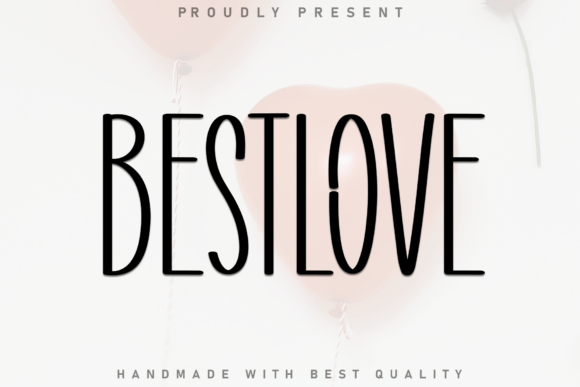
Introducing Bestlove Font: The Ultimate Handwritten Marker Font for Elegant and Casual Designs
In the world of typography, fonts play a crucial role in conveying the tone and personality of a brand or design. When it comes to creating a luxurious and elegant yet casual look, Bestlove Font is an excellent choice. This handwritten font, designed to mimic the look of a marker, offers a unique blend of sophistication and playfulness, making it perfect for a wide range of applications.
What is Bestlove Font?
Bestlove Font is a carefully crafted handwritten font that resembles the natural flow of a marker. Its relaxed and sporty feel makes it an ideal choice for designs that require a touch of elegance and casualness. The font’s unique characteristics make it versatile and suitable for various projects, from branding and logos to wedding supplies, greeting cards, fashion lookbooks, and marketing promotions.
Key Features of Bestlove Font
- Handwritten with a marker feel: Bestlove Font is designed to look like it was drawn with a marker, giving it a personal and organic feel.
- Relaxed and sporty vibe: The font exudes a sense of casualness and sportiness, making it perfect for designs that require a laid-back yet stylish look.
- Luxurious and elegant: Despite its casual feel, Bestlove Font still conveys a sense of luxury and elegance, making it suitable for high-end brands and designs.
- Versatile: The font can be used for a wide range of applications, including branding, logos, wedding supplies, greeting cards, fashion lookbooks, and marketing promotions.
Use Cases for Bestlove Font
Branding and Logos
Bestlove Font is an excellent choice for branding and logos, especially for businesses that want to convey a sense of elegance and sophistication. The font’s unique marker feel and relaxed vibe make it perfect for creating a distinctive brand identity.
Wedding Supplies and Greeting Cards
The font’s elegant and casual feel makes it suitable for wedding supplies, such as invitations, programs, and place cards. Additionally, Bestlove Font can be used for designing greeting cards, including birthday cards, thank-you cards, and holiday cards.
Fashion Lookbooks and Marketing Promotions
Bestlove Font is also ideal for fashion lookbooks, catalogs, and marketing promotions. The font’s luxurious and elegant feel makes it perfect for showcasing high-end fashion products, while its casual vibe adds a touch of approachability and friendliness.
Tips for Using Bestlove Font Effectively
- Pair with contrasting fonts: Combine Bestlove Font with contrasting fonts to create visual interest and hierarchy in your design.
- Use for headlines and titles: The font’s elegance and sophistication make it perfect for headlines and titles, while its casual feel works well for body text.
- Experiment with colors and textures: Bestlove Font can be used with a variety of colors and textures to create unique and eye-catching designs.
In conclusion, Bestlove Font is a versatile and elegant handwritten font that offers a unique blend of sophistication and casualness. Its relaxed and sporty feel, combined with its luxurious and elegant vibe, make it perfect for a wide range of applications, from branding and logos to wedding supplies, greeting cards, fashion lookbooks, and marketing promotions. With its marker feel and natural flow, Bestlove Font is sure to add a touch of personality and style to any design.